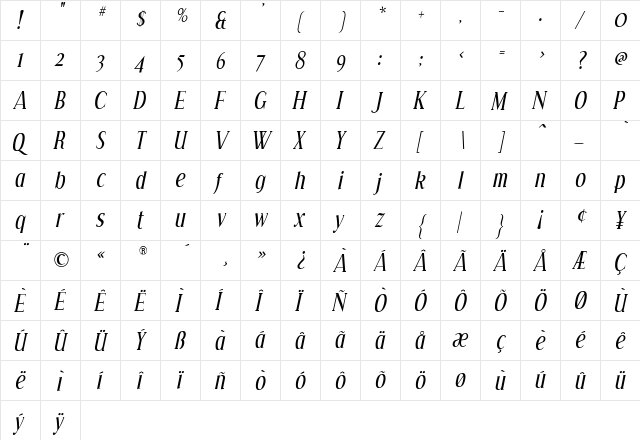
Effloresce Italic
Design Context for Effloresce Typeface
Effloresce is a composed and adaptable typeface that performs quietly and consistently across a wide range of design contexts. The slanted form adds forward momentum and visual energy.
Pro Tip: Use Effloresce for emphasis, pull quotes, and subheadings where its slanted energy can add rhythm to the layout.